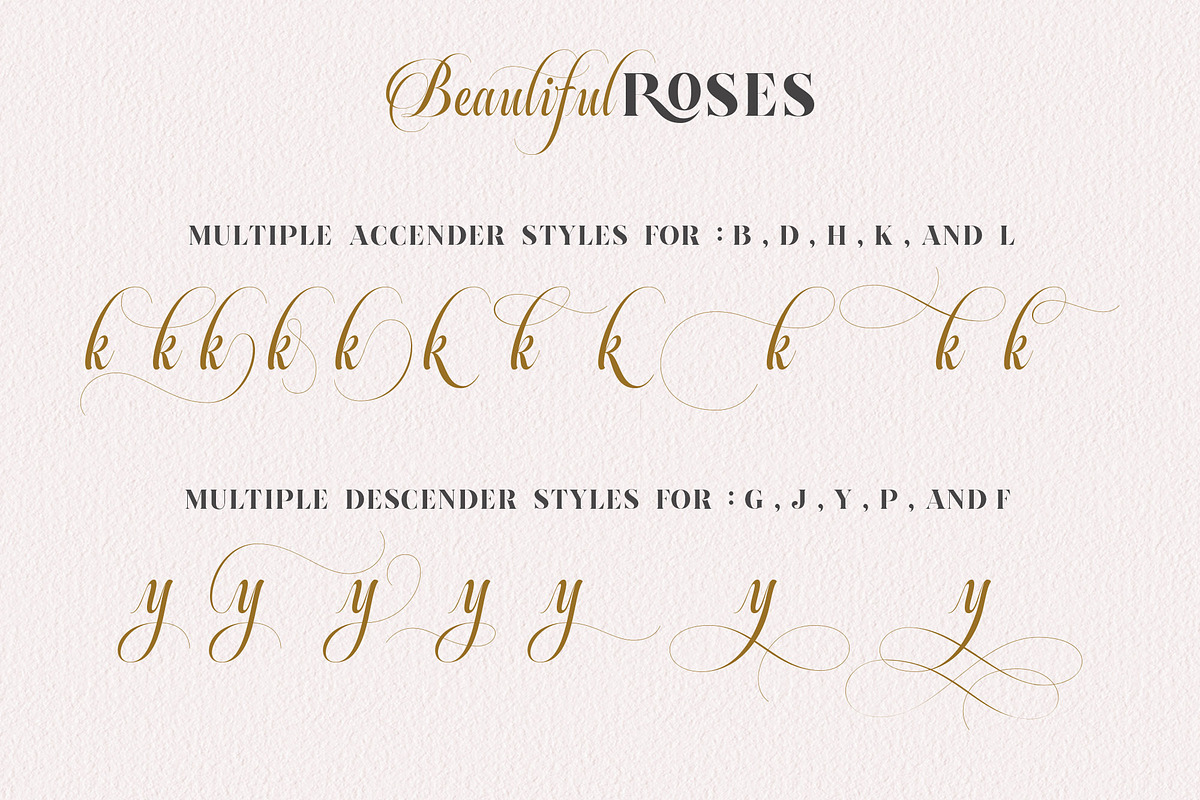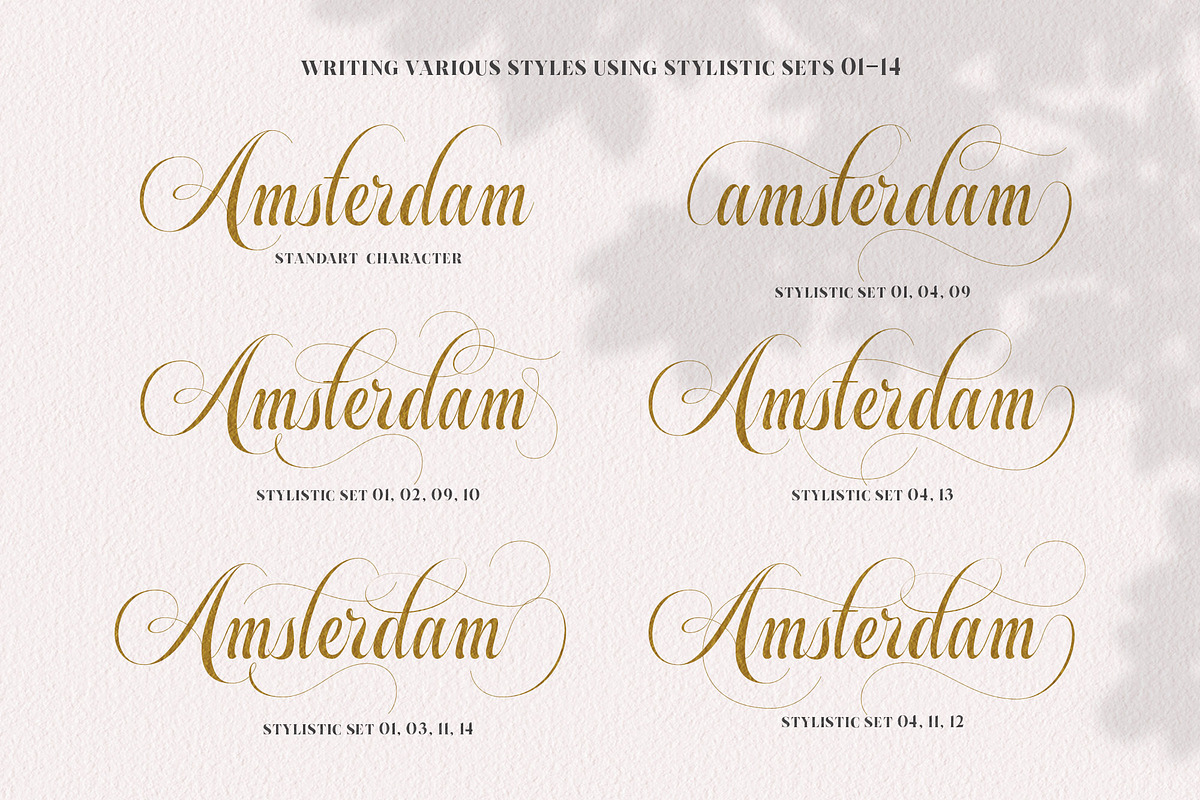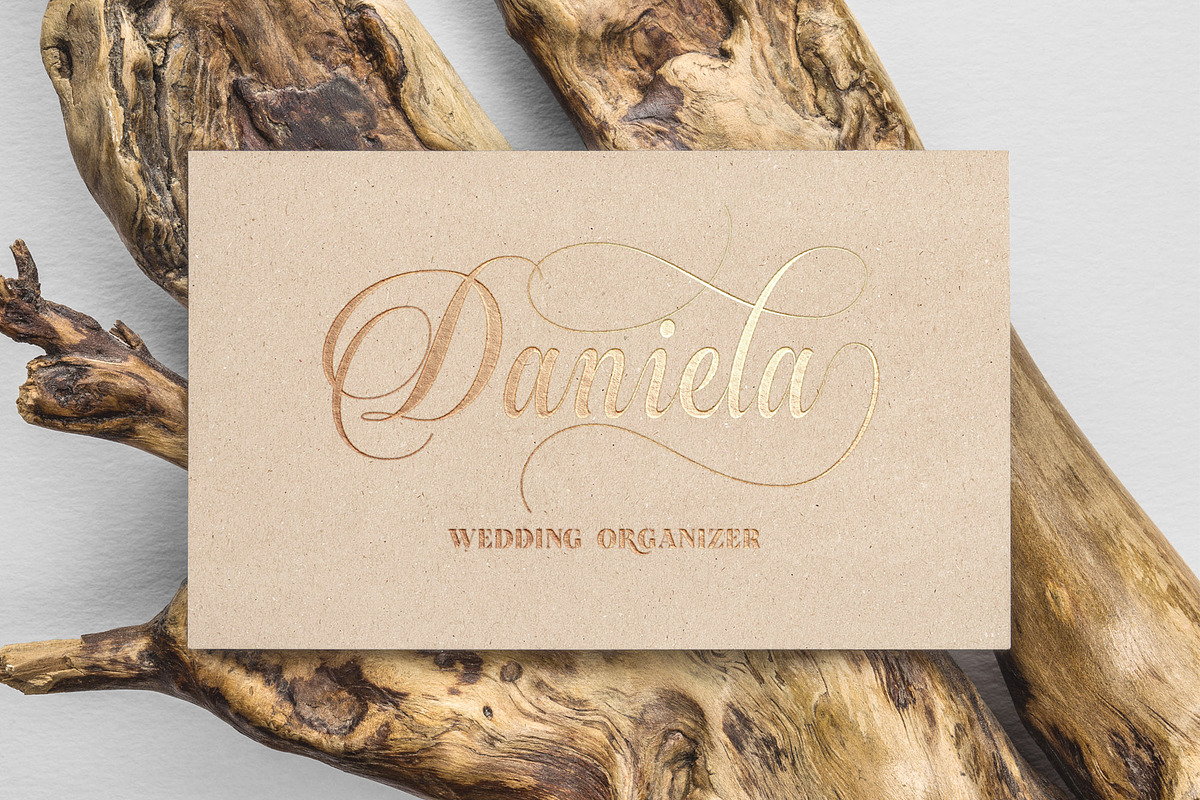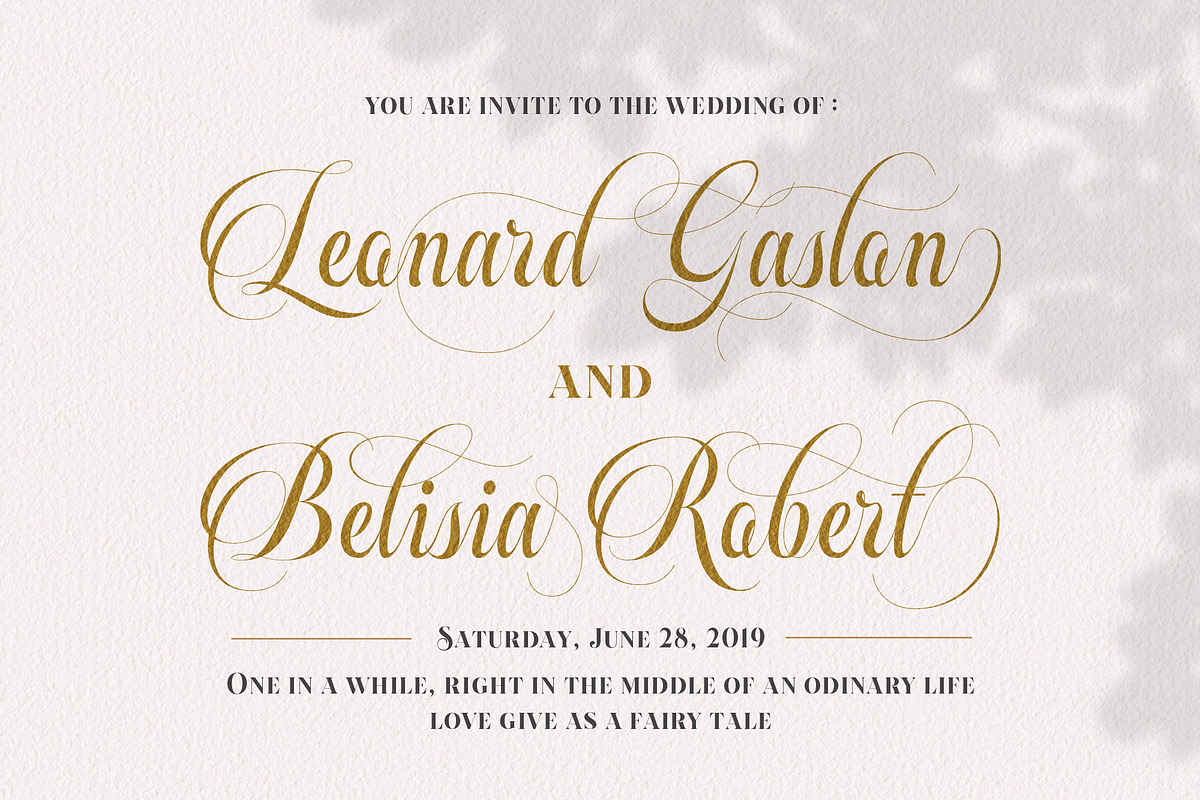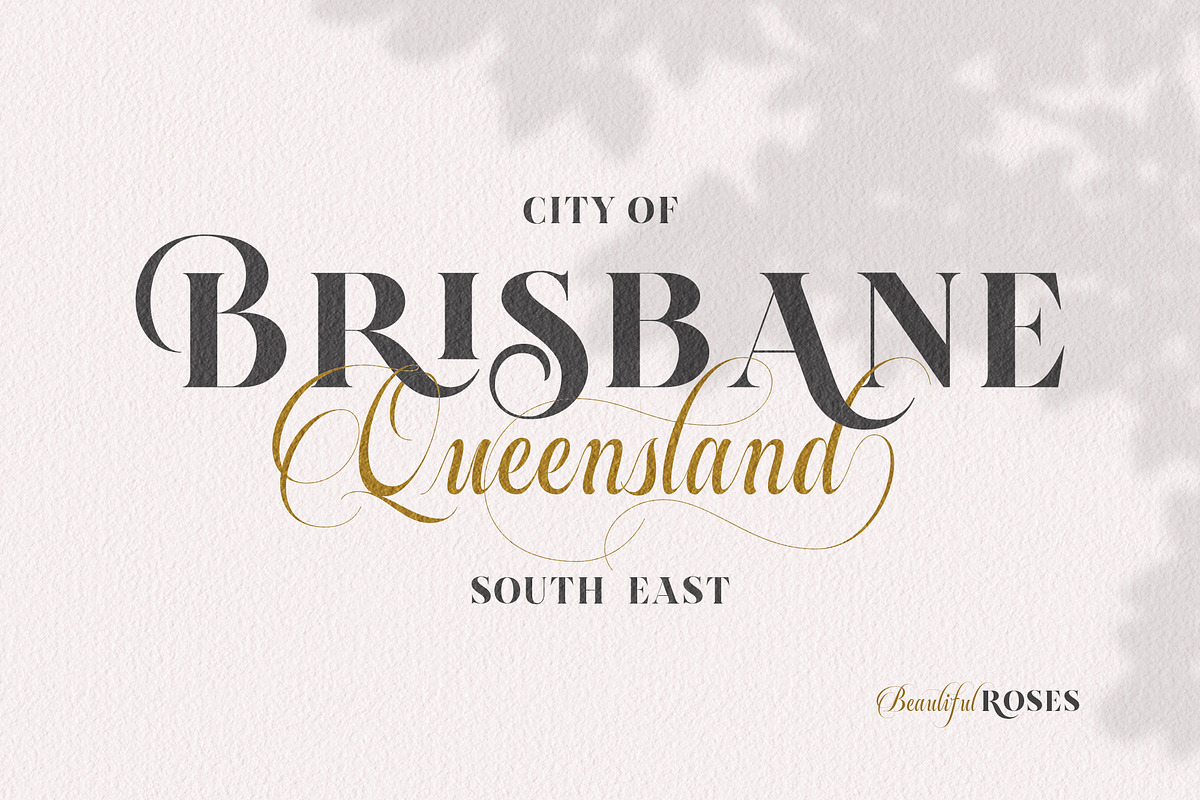
Beautiful Roses - Font Duo
Introducing a new duo font serif and script called Beautiful Roses. Beautiful Roses good for logotype, poster, badge, wedding invitation, book cover, tshirt design, packaging and any more.
MULTILINGUAL ACCENT :
ŽžŠŒšŸÀÁÂÃÄÅÆÇÈÉÊËÌÍÎÏÐÑÒÓÔÕÖØÙÚÛÜÝßàáâãäåæçèéêëìíîïðñòóôõöøùúûüýÿ ( Beautiful Roses Script and Serif )
Alternative character, stylistic set 1-14 ( Beautiful Roses Script )
Ligature ( Beautiful Roses Script )
Dictionary ligature for do og oc oo co ki ri ke ko re ro ra ka ku ru lu la lo ( Beautiful Roses Serif )
Alternative character ( Beautiful Roses Serif )